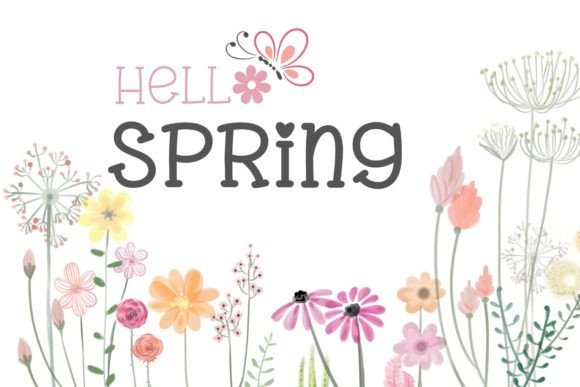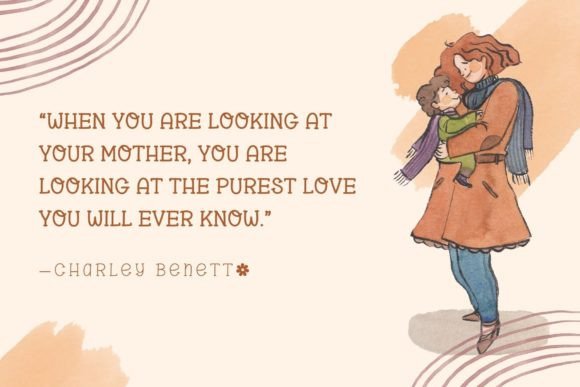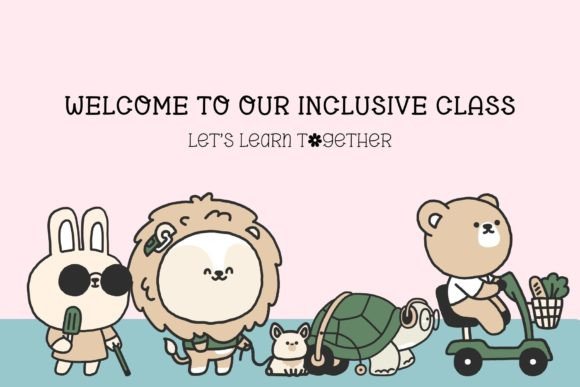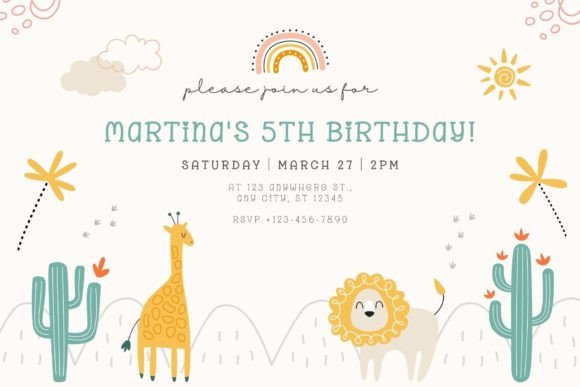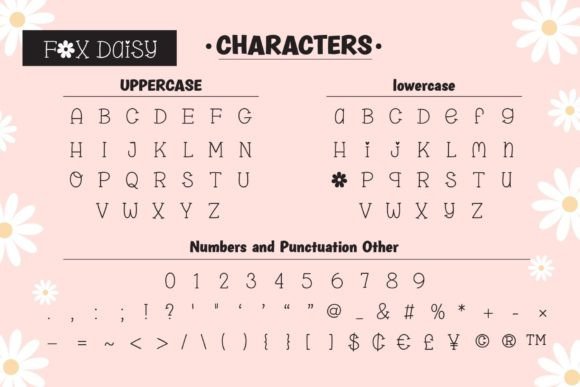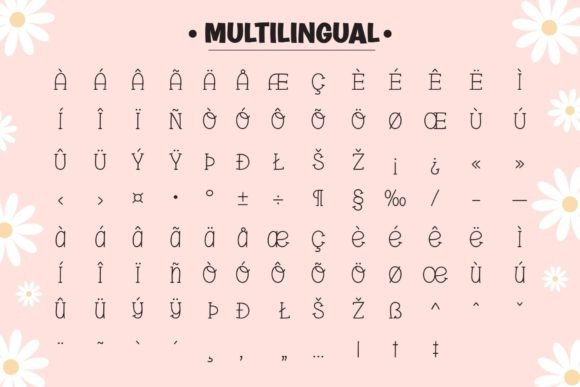
Discover the Charming World of Fox Daisy Font
As a designer, there’s nothing quite like the thrill of discovering a new font that perfectly captures the essence of your creative vision. It’s that moment when the words flow effortlessly onto the page, and your design comes alive with character. For me, that moment arrived when I stumbled upon the Fox Daisy Font – a charming handwritten Slab Serif typeface that exudes cuteness and simplicity.
| 👤 Author | Fox7 |
With its clean lines and easy-to-read design, Fox Daisy Font is the perfect choice for a wide range of creative projects. Whether you’re crafting inspirational quotes, captivating headings, engaging blogs, striking logos, or inviting invitations, this font adds a delightful touch to any project. As a valuable asset for designers, Fox Daisy Font offers a unique blend of playfulness and sophistication that’s hard to resist.
Fox Daisy Font Key Features
- Unique Characteristics: This font features a unique blend of modern and vintage elements, with subtle rounded edges and elegant lines that give it a sophisticated and playful feel.
- Font Style: Fox Daisy Font comes in two styles: Regular and Bold, allowing designers to create contrast and emphasis in their designs.
Designer Review: Fox Daisy Font
Overall, I’m quite impressed with the Fox Daisy Font. It has a unique and playful feel that’s perfect for modern designs.
- Unique character design: Each letter in the Fox Daisy Font has a distinctive feel to it, making it stand out in any design.
- High legibility: The font is easy to read, even at smaller font sizes, making it suitable for body text.
- Great for creative projects: The Fox Daisy Font’s quirky feel makes it perfect for creative projects, such as logos, titles, and headings.
- Limited font sizes: The Fox Daisy Font is best suited for larger font sizes, as it can become pixelated at smaller sizes.
- Not suitable for formal designs: The font’s playful feel may not be suitable for more formal designs, such as business reports or academic papers.
- No bold or italic styles: The Fox Daisy Font only comes in regular and bold styles, which may limit its versatility.
The Fox Daisy Font is a great choice for designers who want to add a touch of playfulness to their designs. While it has some limitations, its unique character design and high legibility make it a great addition to any designer’s toolkit.
Practical Application Guide for Fox Daisy Font
Tips for Getting the Most Out of Fox Daisy Font
For optimal results, use Fox Daisy Font in conjunction with a distressed or vintage design aesthetic. Pair the font with bold, bright colors to create a playful and eye-catching look.
Fox Daisy Font is perfect for:
- Creating playful and whimsical designs
- Adding a vintage touch to modern designs
- Designing children’s products and educational materials
- Creating hand-lettered and hand-painted effects